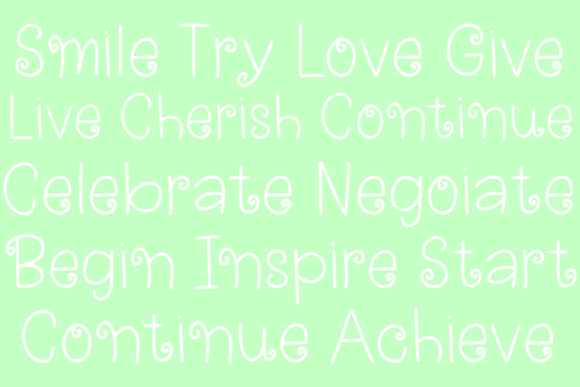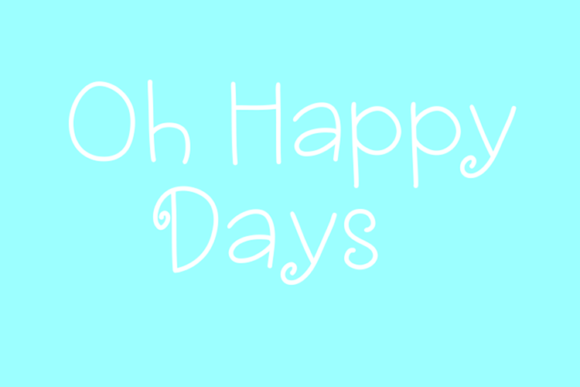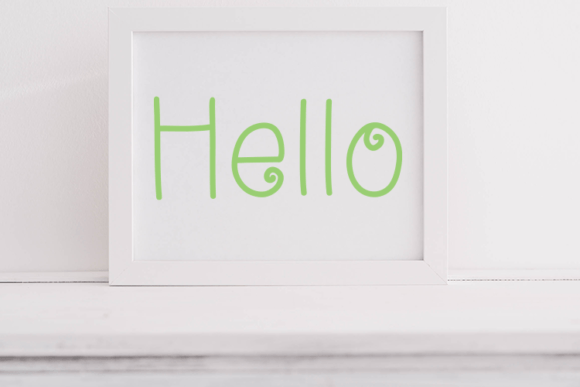
The Charm of Bubbles Font: A Quirky Handwritten Delight
Have you ever been in the middle of a design project, and suddenly, you just can’t seem to find the right font? I recall a particularly frustrating moment when I was working on a branding project for a playful children’s toy company. The client wanted a font that was fun, bubbly, and full of personality. I scoured the internet, tried countless fonts, but nothing seemed quite right. That was until I stumbled upon Bubbles Font.
A Personal Review of Bubbles Font
Bubbles Font is a quirky handwritten font that is, in a word, delightful. Created with love and care, this font is perfect for designers, crafters, and creative hobbyists looking to add a touch of whimsy to their projects.
What I Love About Bubbles Font ✨
- ✅ Its playful, hand-crafted feel makes it perfect for children’s products, party invitations, or any project that needs a dash of fun.
- ✅ The font comes with a range of OpenType features, including stylistic alternates and glyphs, allowing for endless variations and customizations.
- ✅ It’s highly legible, even at smaller sizes, making it versatile for use on various platforms, from websites to t-shirts.
- ✅ The font’s unique charm and personality can help your brand or project stand out from the crowd.
- ⚠️ As with many handwritten fonts, some letters may not perfectly match traditional typography standards, which could be a consideration for very formal or traditional projects.
- ⚠️ The font’s playful nature might not be suitable for very long blocks of text or formal documents.
Exploring Alternatives to Bubbles Font
While Bubbles Font is undeniably charming, you might be interested in exploring similar fonts or alternatives that could offer a different take on the playful, handwritten aesthetic:
- Kawaii: A super-cute, handwritten font perfect for projects aimed at a younger audience or anyone looking for a sweet, innocent vibe.
- Dancing Script: Offers a more elegant take on handwritten fonts, with flowing strokes and a sophisticated feel.
- Pacifico: A beautiful, modern script font with a relaxed, personal feel, great for branding and advertising.
- Great Vibes: A fun, energetic script font with a bouncy feel, ideal for party invitations, event branding, and more.
The Backstory of Bubbles Font
Bubbles Font was created by a passionate typographer who wanted to capture the essence of playful, carefree writing. Inspired by childhood memories of bubble writing in notebooks, the designer meticulously crafted each letter to convey joy and whimsy. The result is a font that feels both personal and versatile, suitable for a wide range of creative projects.
| Does Bubbles Font support OpenType features? | Yes, Bubbles Font comes with OpenType features, including stylistic alternates and glyphs, allowing for a high degree of customization. |
In conclusion, Bubbles Font is a delightful addition to any designer’s toolkit. Its playful, bubbly personality can add a unique touch to a wide range of projects, from branding and advertising to crafting and DIY hobbies. With its ease of use across various platforms and its charming aesthetic, Bubbles Font is sure to inspire creativity and bring a smile to your face.